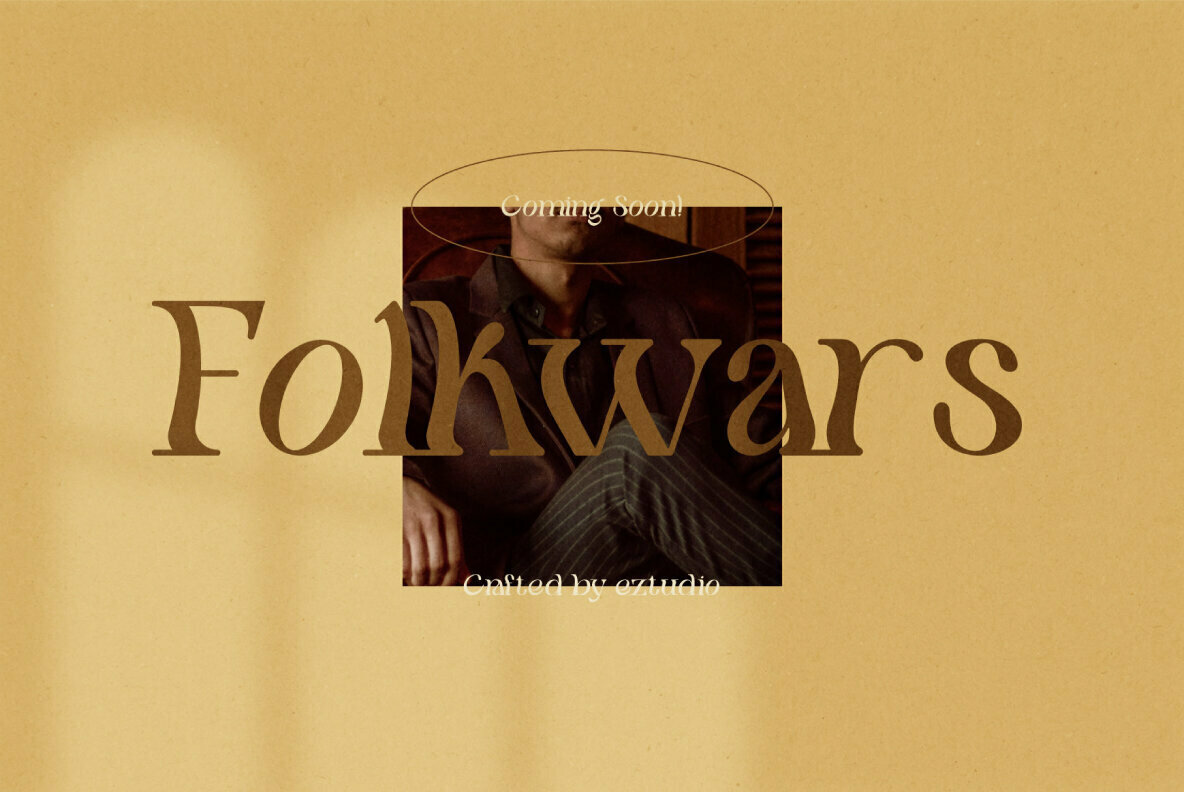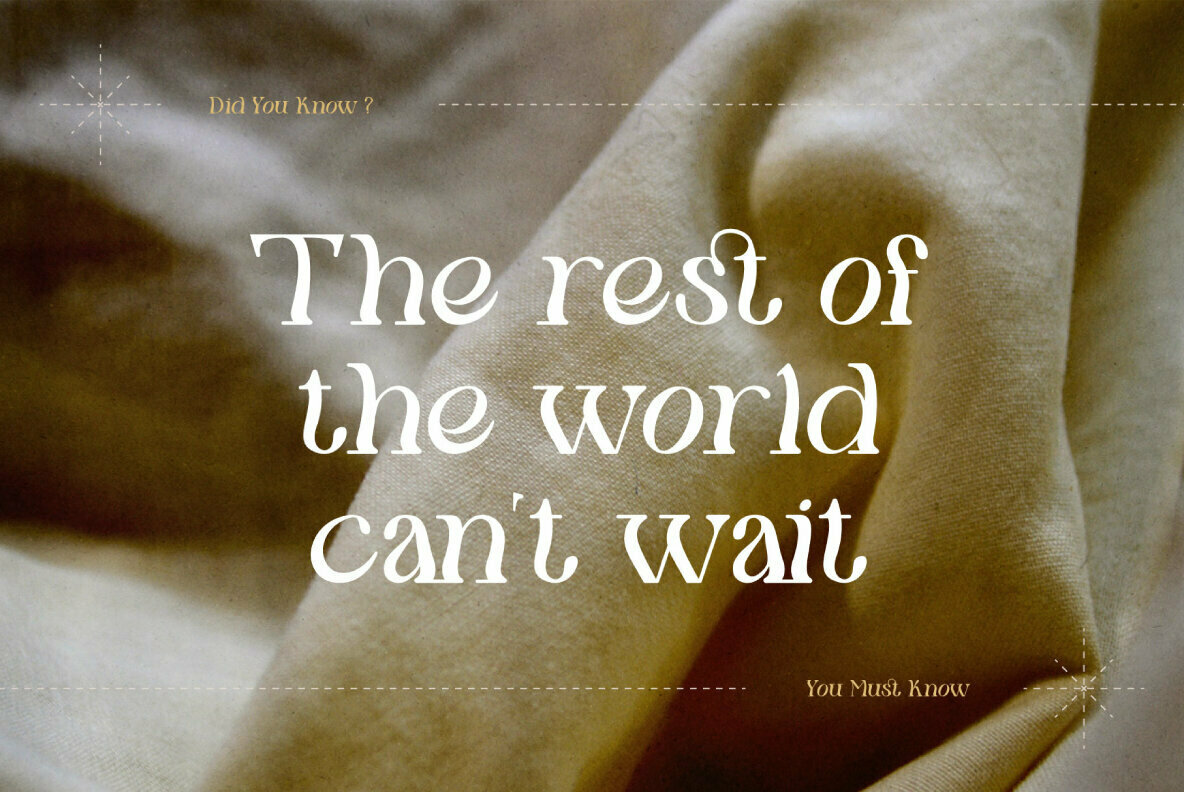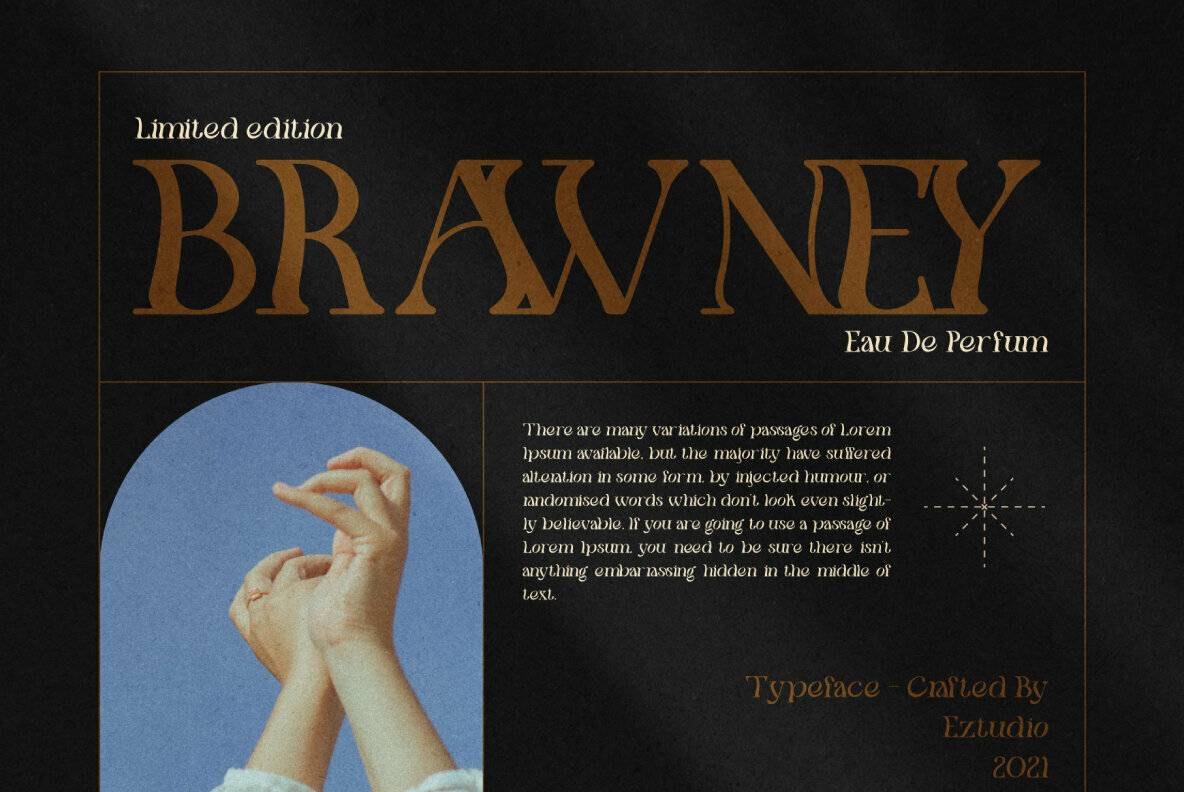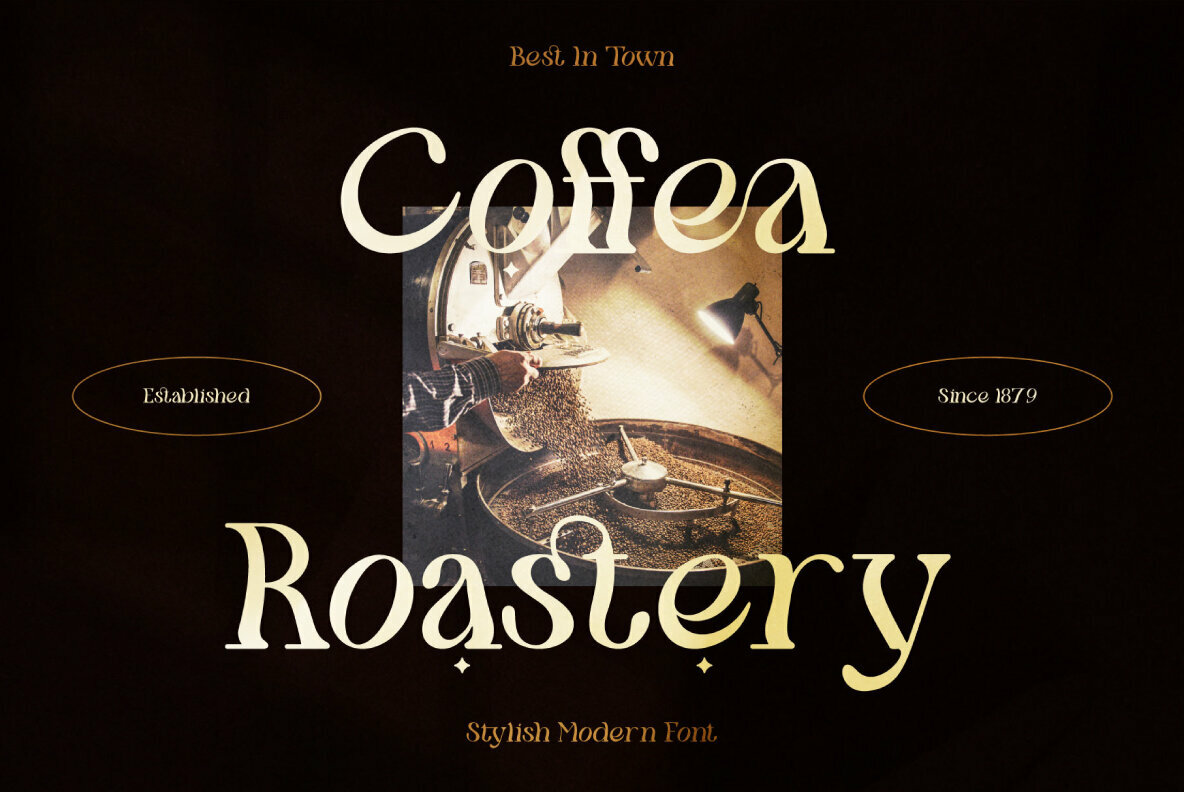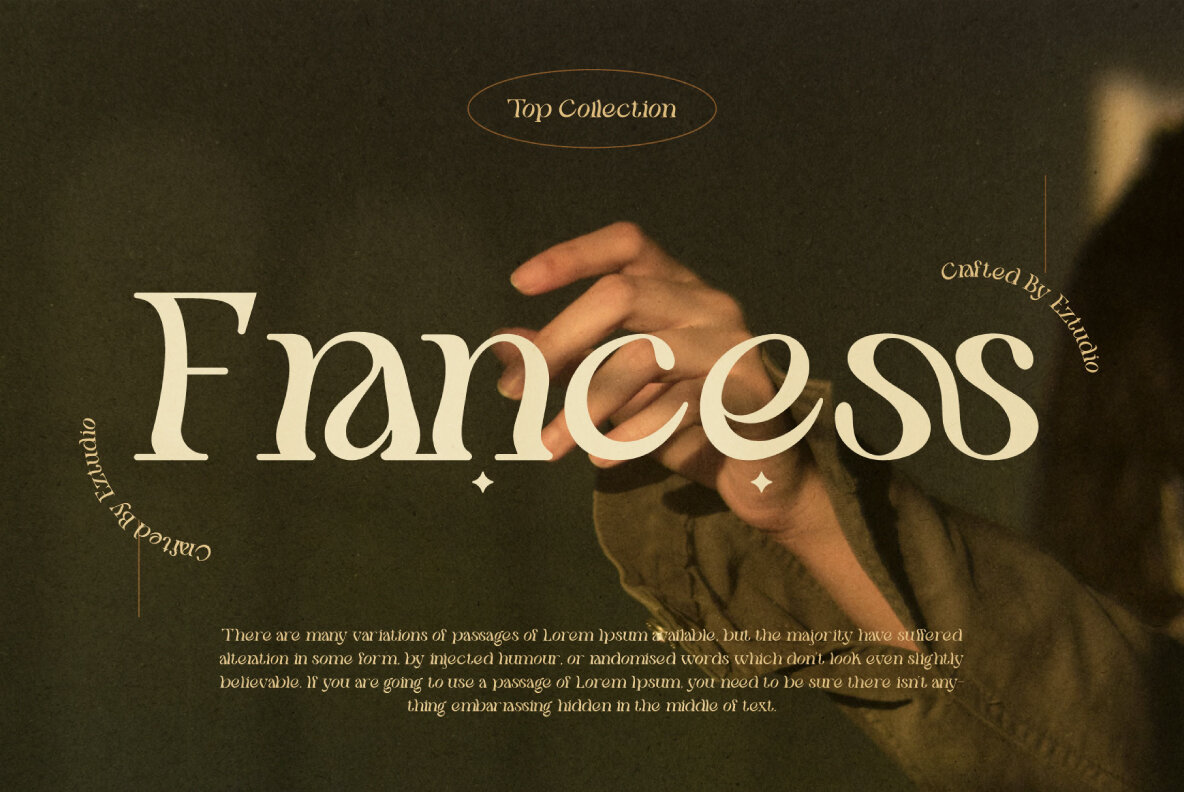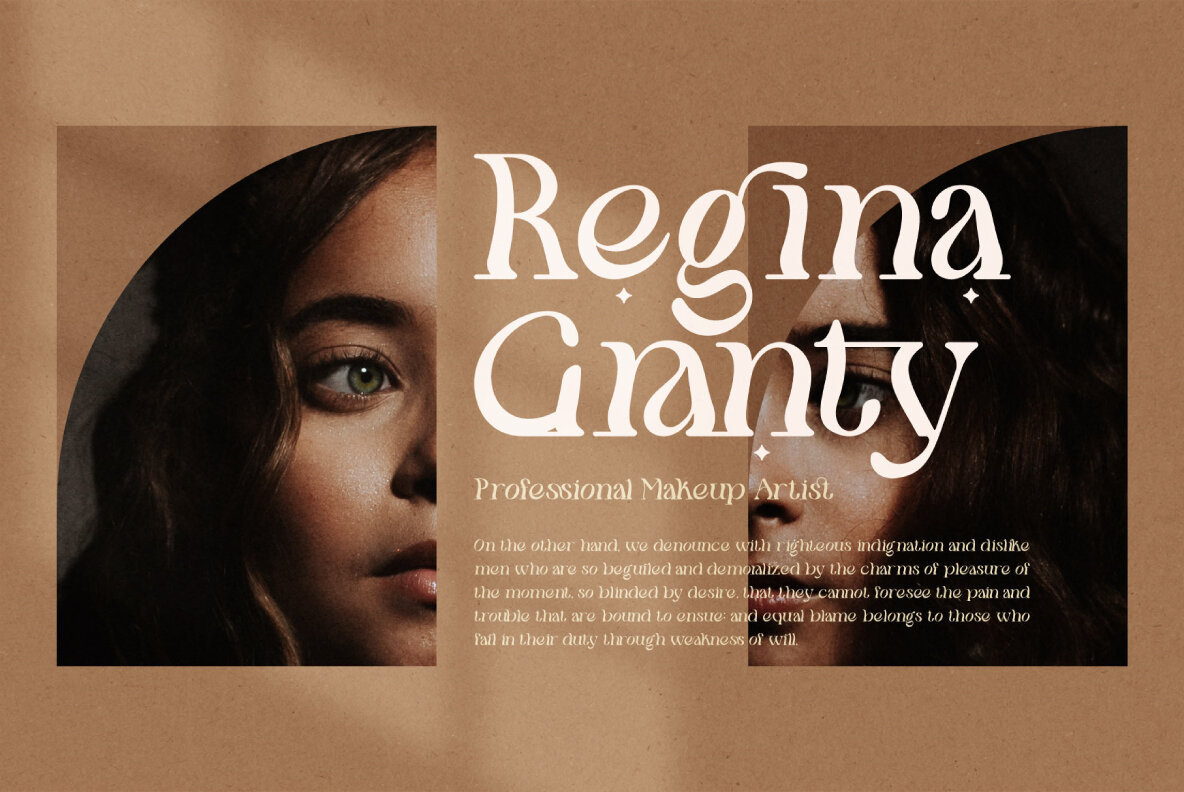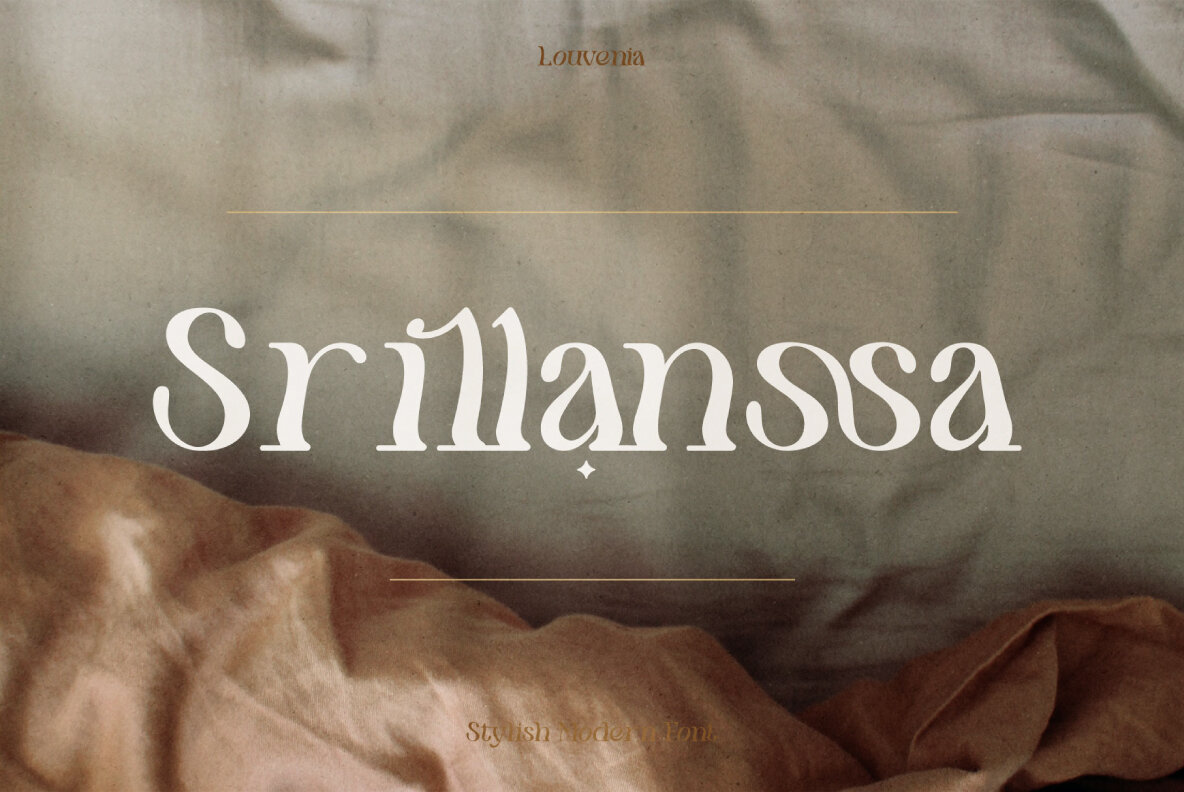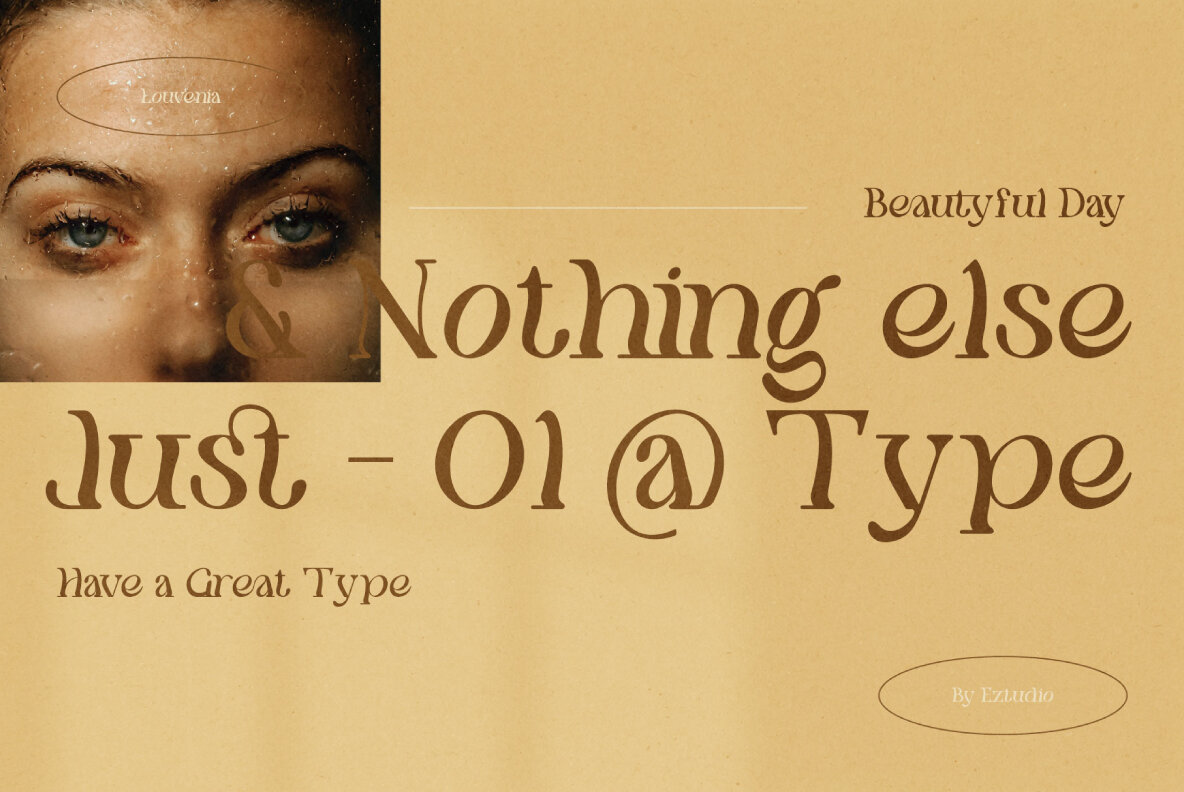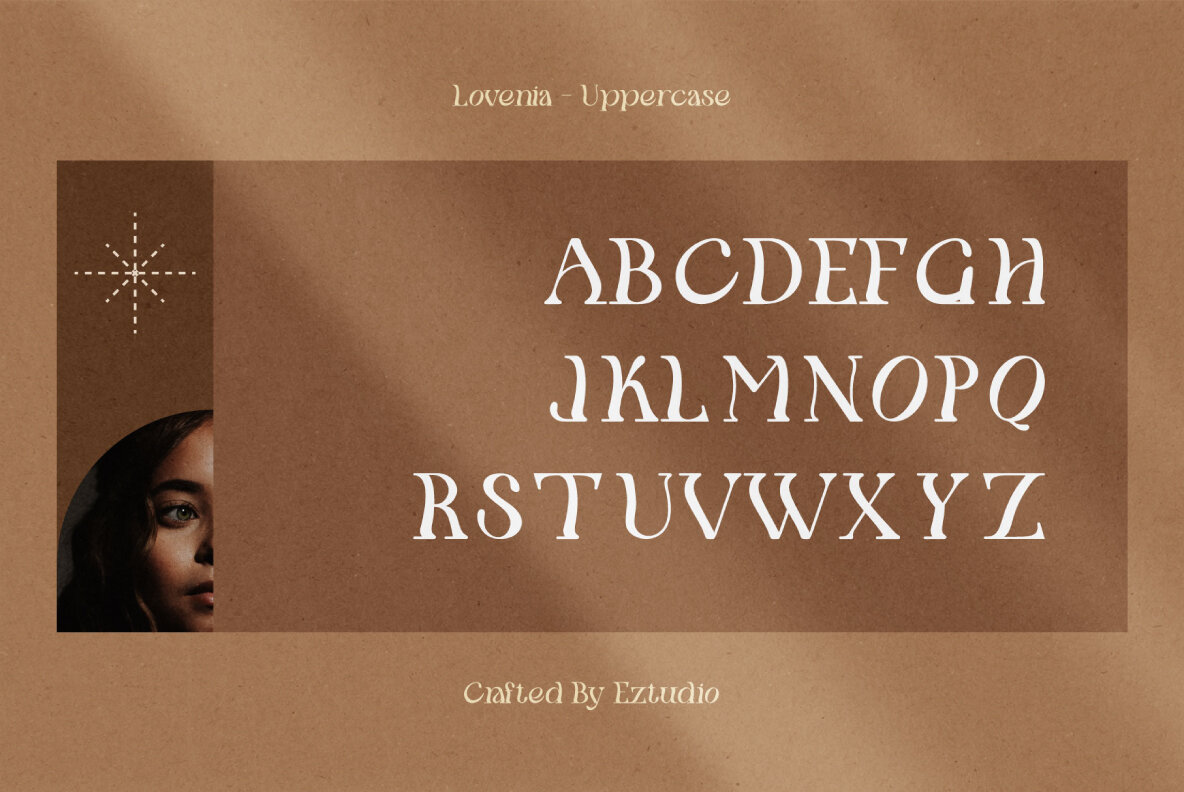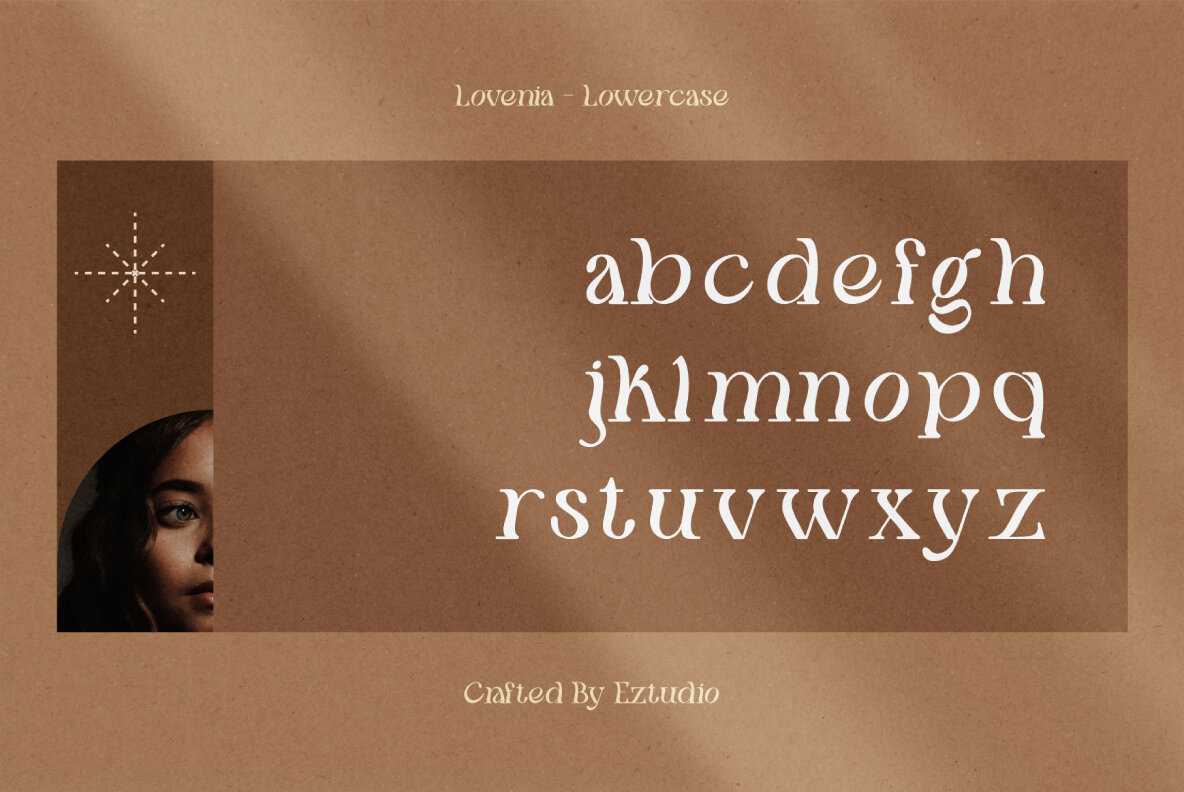
Louvenia Font
Louvenia
Louvenia is a stylish modern font design published by eztudio. This font included uppercase letters, lowercase letters, ligatures, numbers, special characters, multilingual glyphs. This font can also be combined with other fonts like serif, script and handwritten. This font is suitable for graphic design needs such as: magazine, poster, branding, apparels, movie headlines etc.